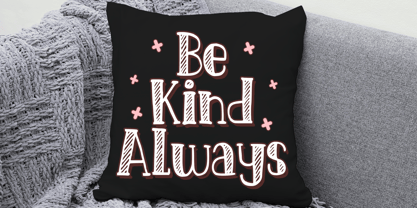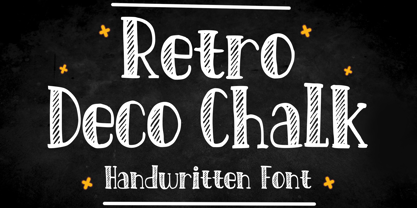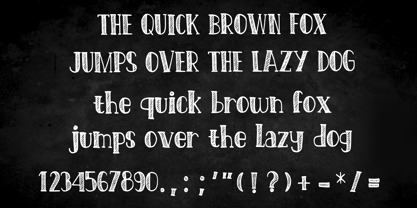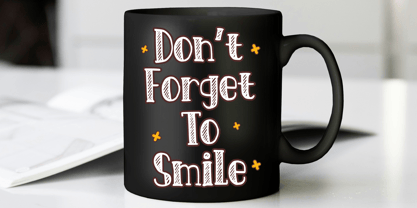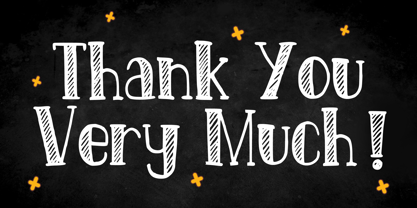
Retro Deco Chalk
von Mvmet
Die Schriftfamilie Retro Deco Chalk wurde von Gabriel Valentinus entworfen und von Mvmet veröffentlicht. Retro Deco Chalk enthält 1 Stile. Mehr über diese Familie
Welcome to the captivating world of Retro Deco Chalk, a distinctive retro display font inspired by the whimsical charm of bygone-era comics, animations, and timeless lettering. Elevate your design projects with its unique splash of letters, promising to catapult them to exceptional dimensions. Retro Deco Chalk is expertly engineered for a myriad of imaginative applications – from bold, witty sticker designs to eye-catching t-shirt graphics, custom logo creations, alluring magazine or book covers, and dynamic comic or animation illustrations. Discover how Retro Deco Chalk can seamlessly integrate into your designs, infusing them with a delightful spark of nostalgia and avant-garde appeal!
Designer: Gabriel Valentinus
Foundry: Mvmet
Retro Deco Chalk